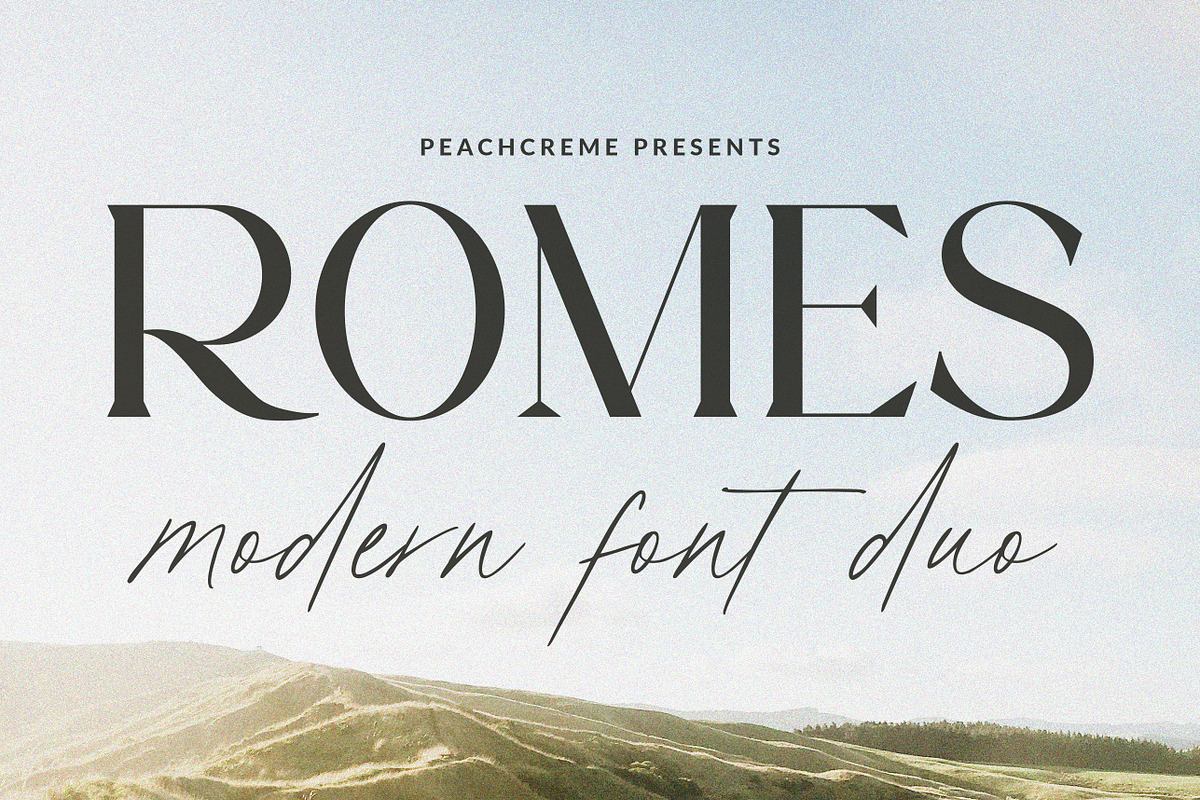
Romes // Modern Font Duo Free Download
Romes // Modern Font Duo Free Download is a sophisticated and contemporary font pairing that combines a sleek, modern serif with a stylish script. Perfect for a variety of design projects, this duo is ideal for branding, invitations, social media graphics, logos, and more.
The Romes Serif offers a clean, structured design that brings professionalism and clarity, while the Romes Script adds an elegant, flowing touch, creating a perfect balance between modern and refined. Whether you're creating a chic logo, a stylish invitation, or a branded design, this duo adds versatility and elegance to your typography.